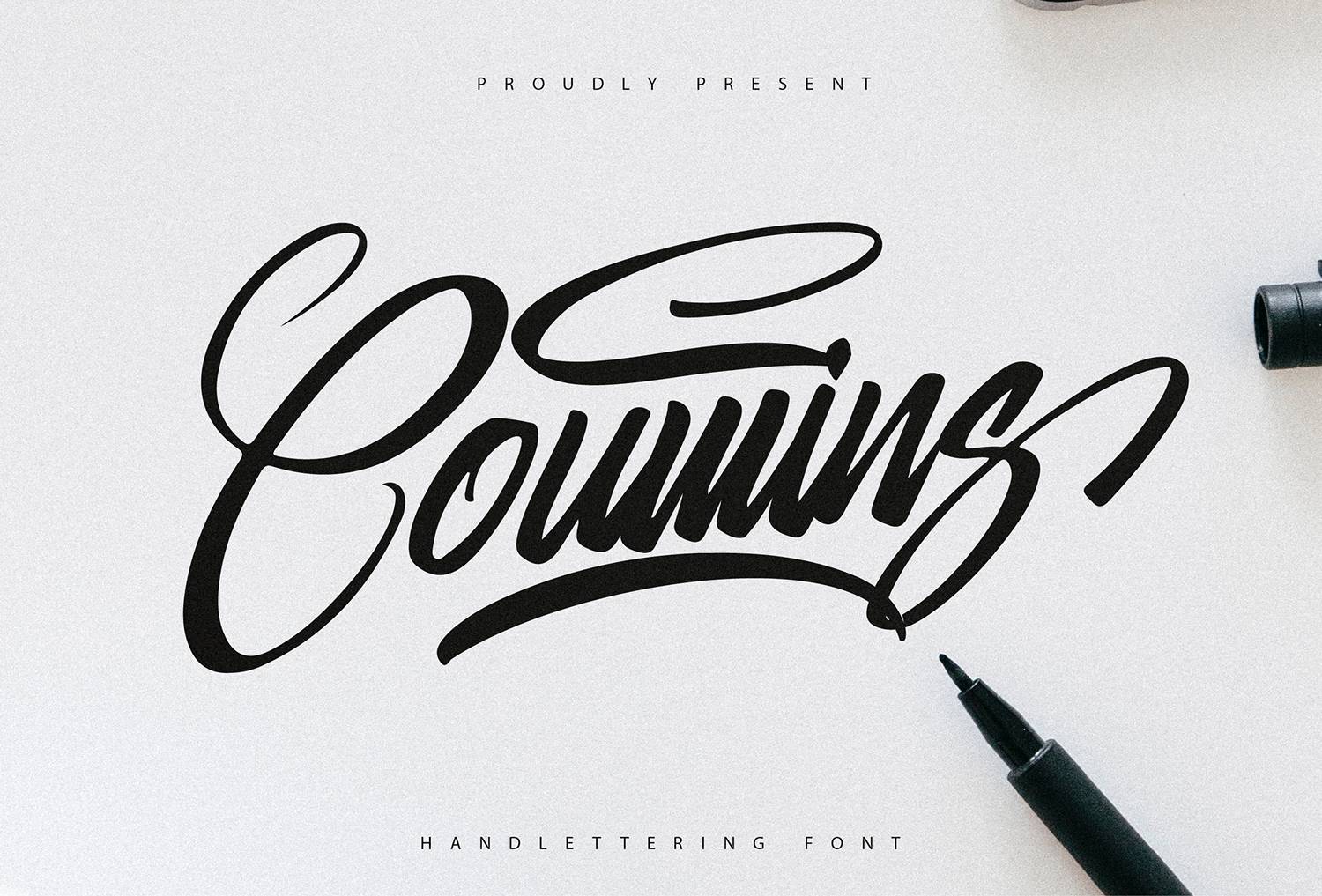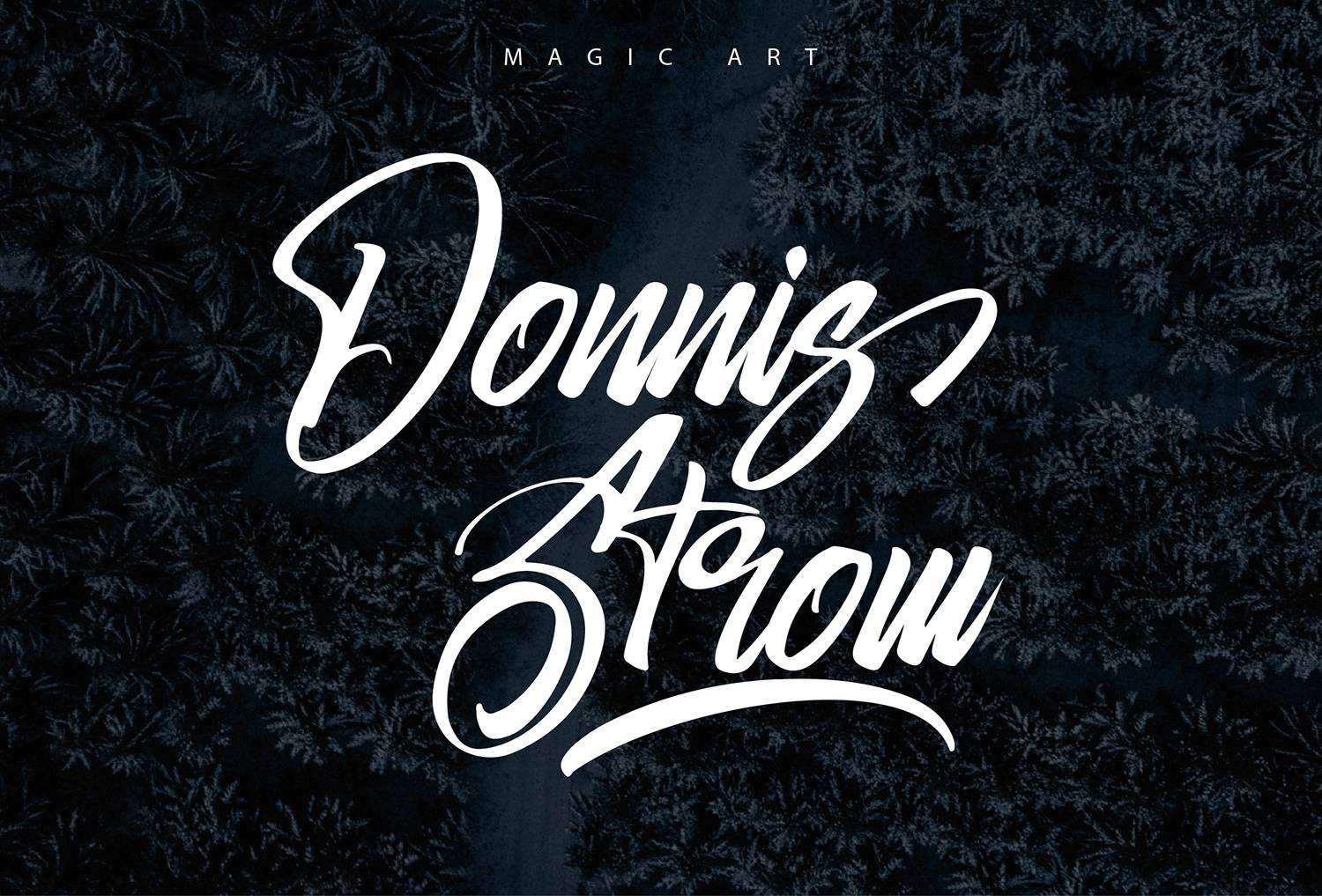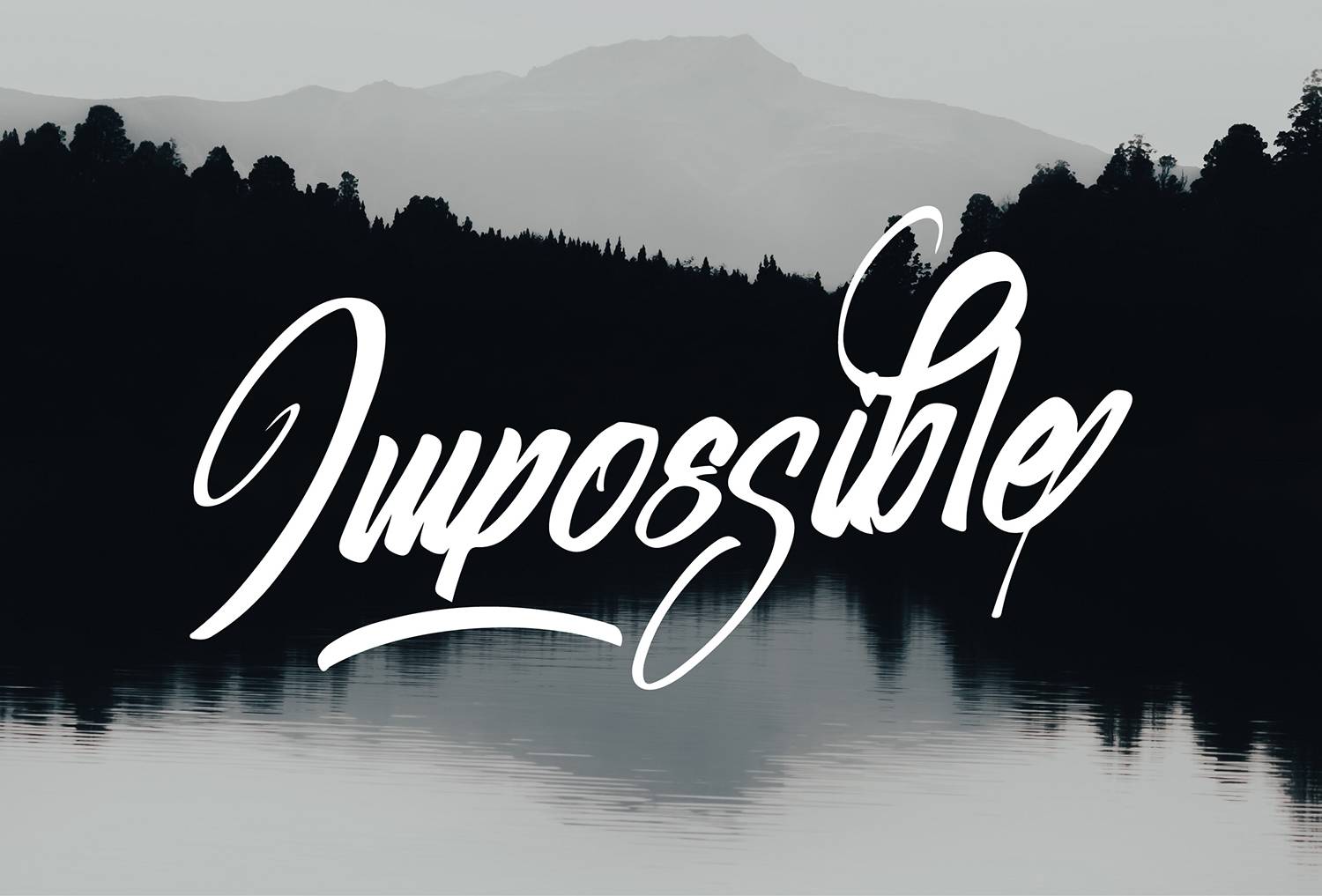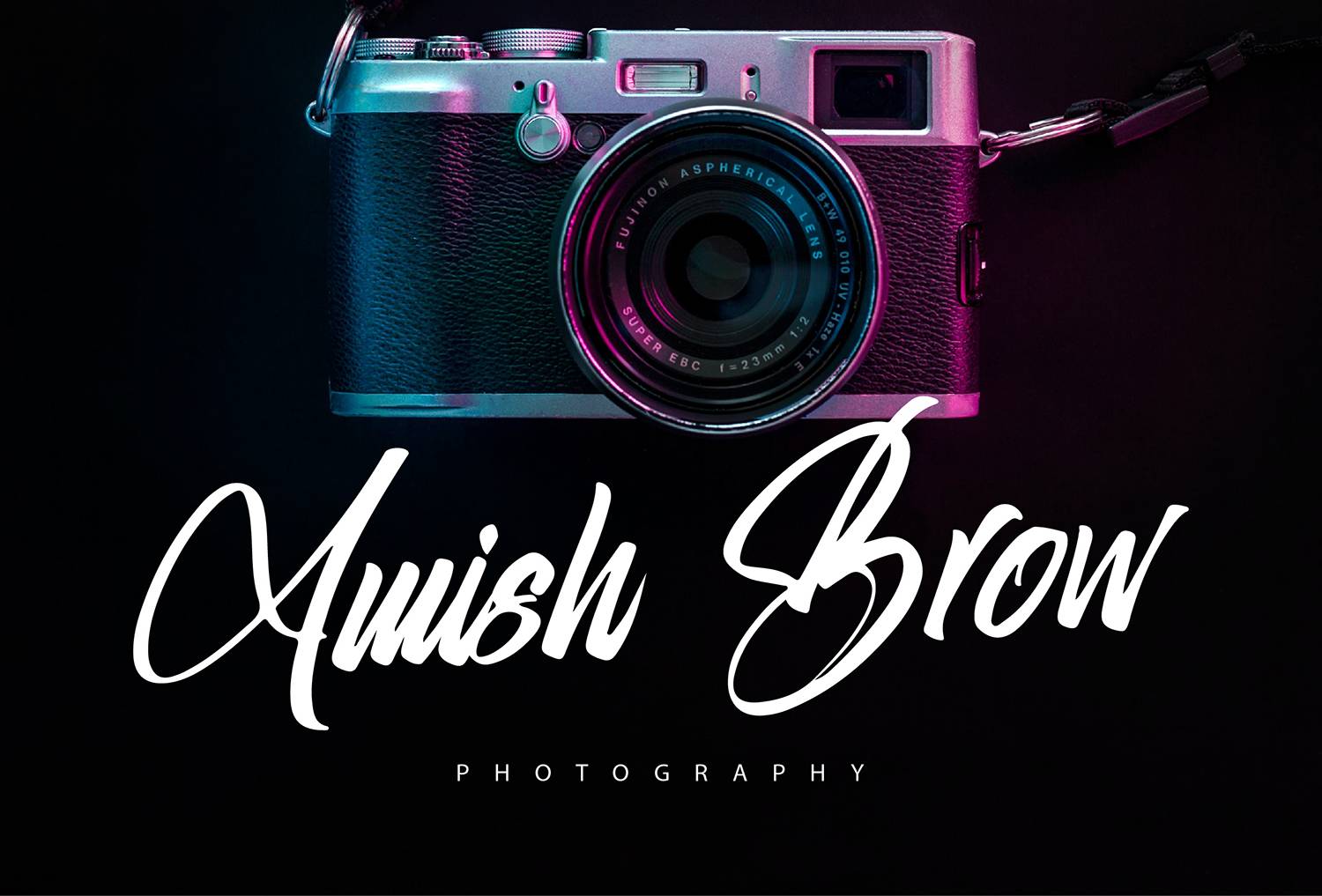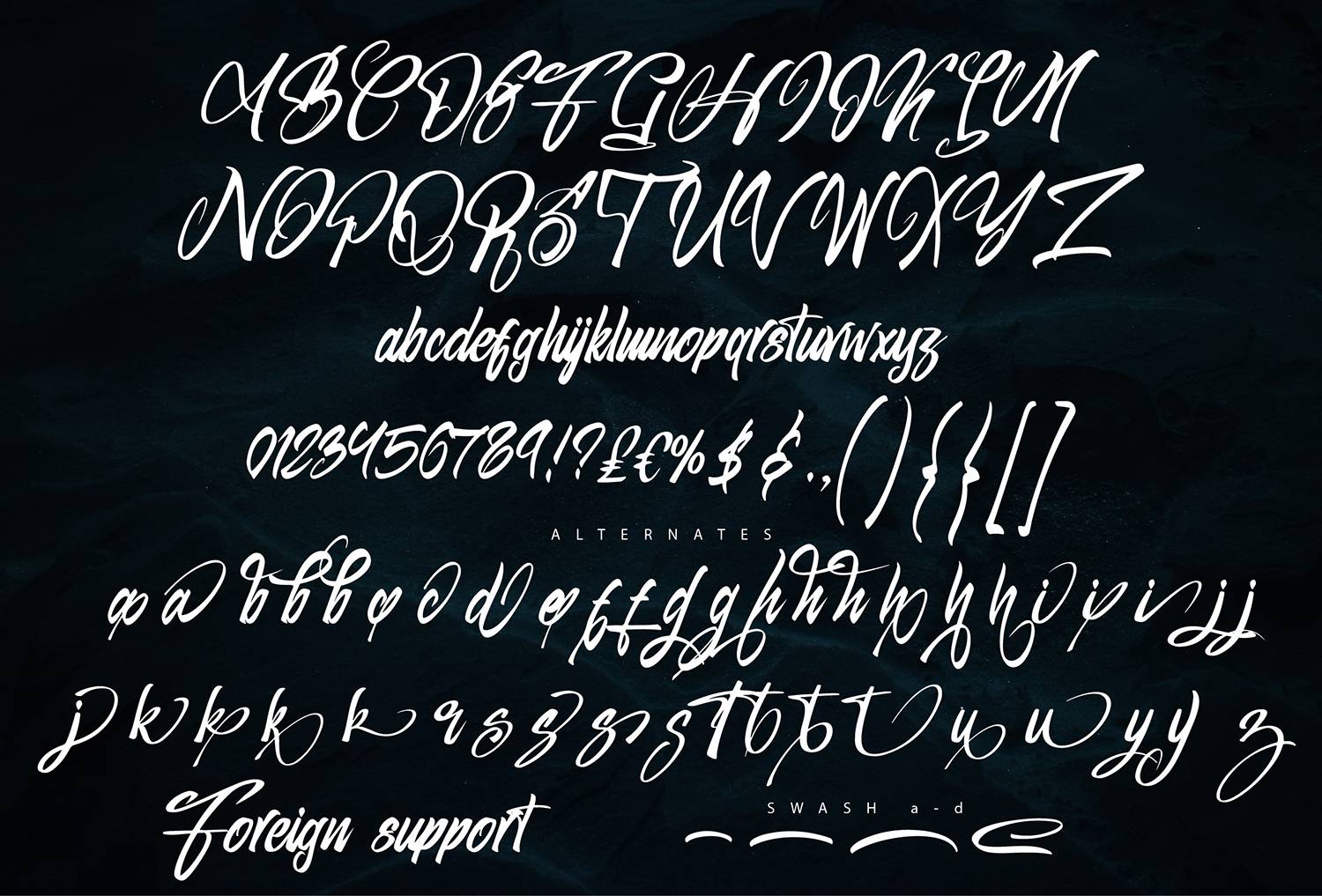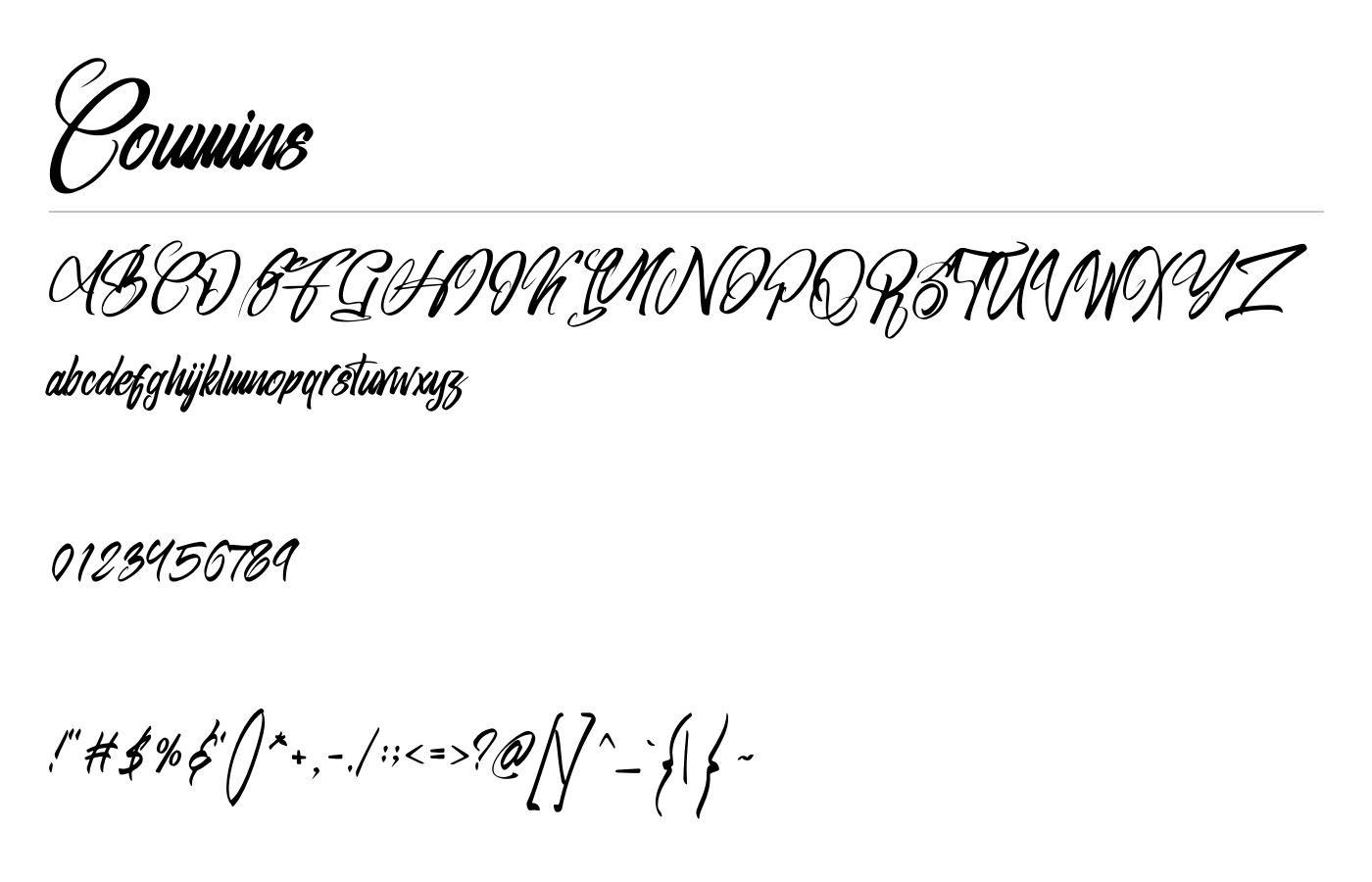
Coumins is an elegant script font featuring a stylish, flowing design with a strong calligraphic influence. Its smooth, medium-weight strokes and high contrast lend a graceful yet modern feel, making it ideal for sophisticated branding, invitations, and headlines that require a personal, artistic touch. This font shines in projects that want to convey refinement and creativity with flair.
Coumins Font